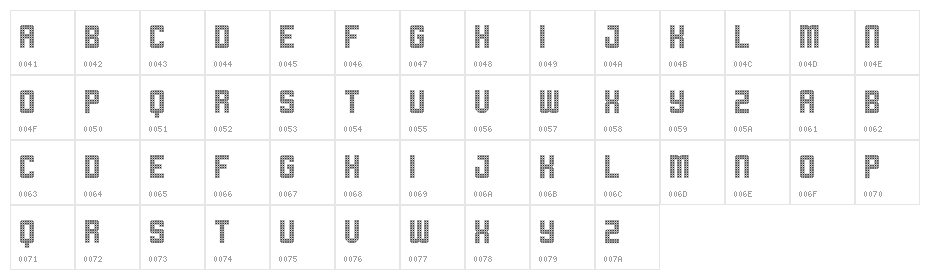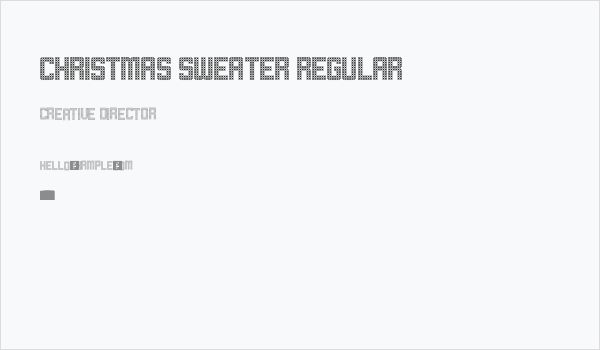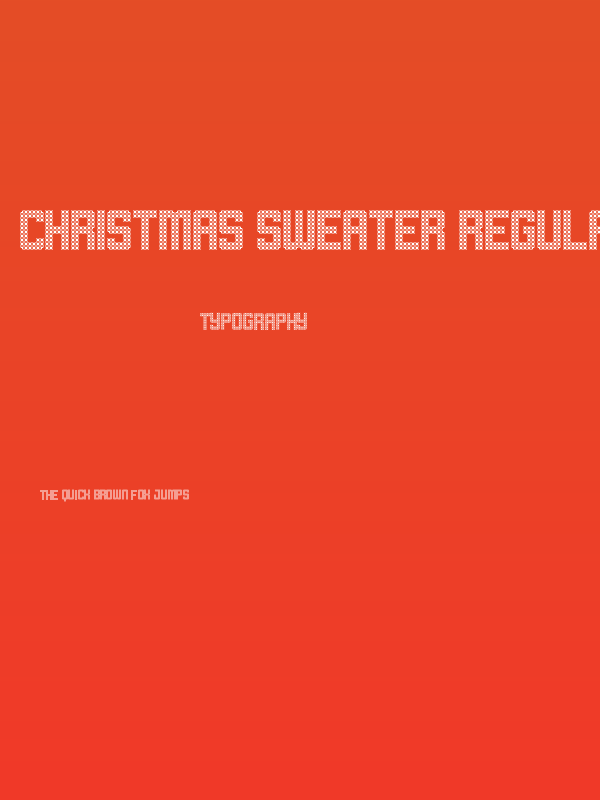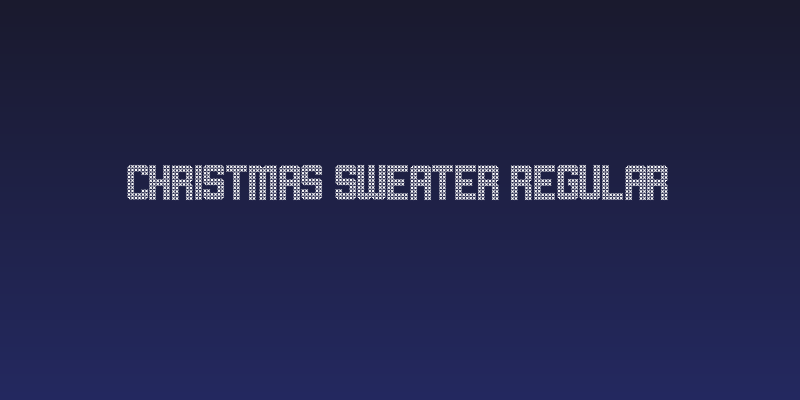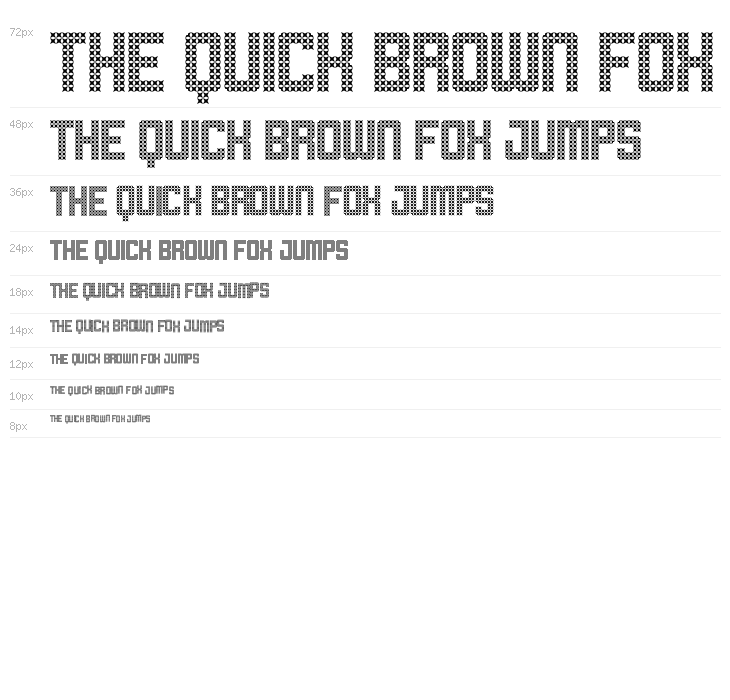
Christmas Sweater Regular Font
Christmas Sweater Regular Description
This font embodies a festive and playful aesthetic, reminiscent of traditional knitted patterns often seen in holiday sweaters. Each character is constructed with a repeating geometric motif, giving it a textured, handcrafted appearance. The uppercase and lowercase letters maintain a consistent pattern, creating a cohesive look across the alphabet. The numbers and special characters are similarly styled, ensuring uniformity throughout. This font captures the essence of holiday cheer and warmth, making it ideal for seasonal designs.
| Use Case | Headlines, Logos, Decorative text |
| Proposed Projects | Ideal for holiday cards, festive banners, seasonal advertisements, and themed social media graphics. |